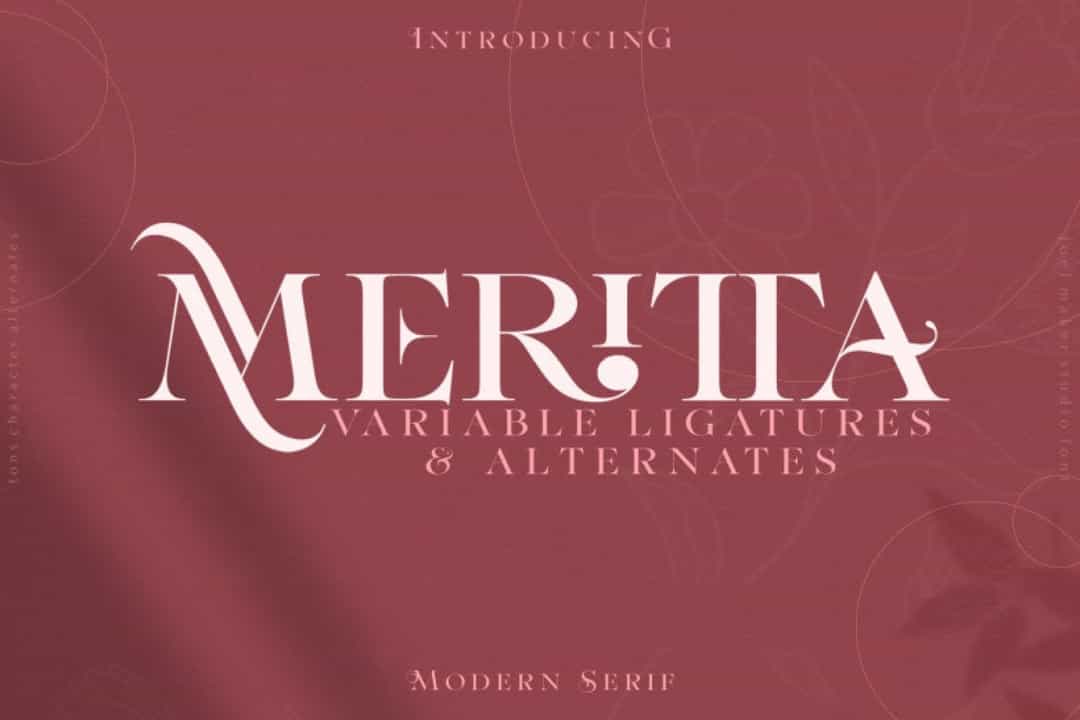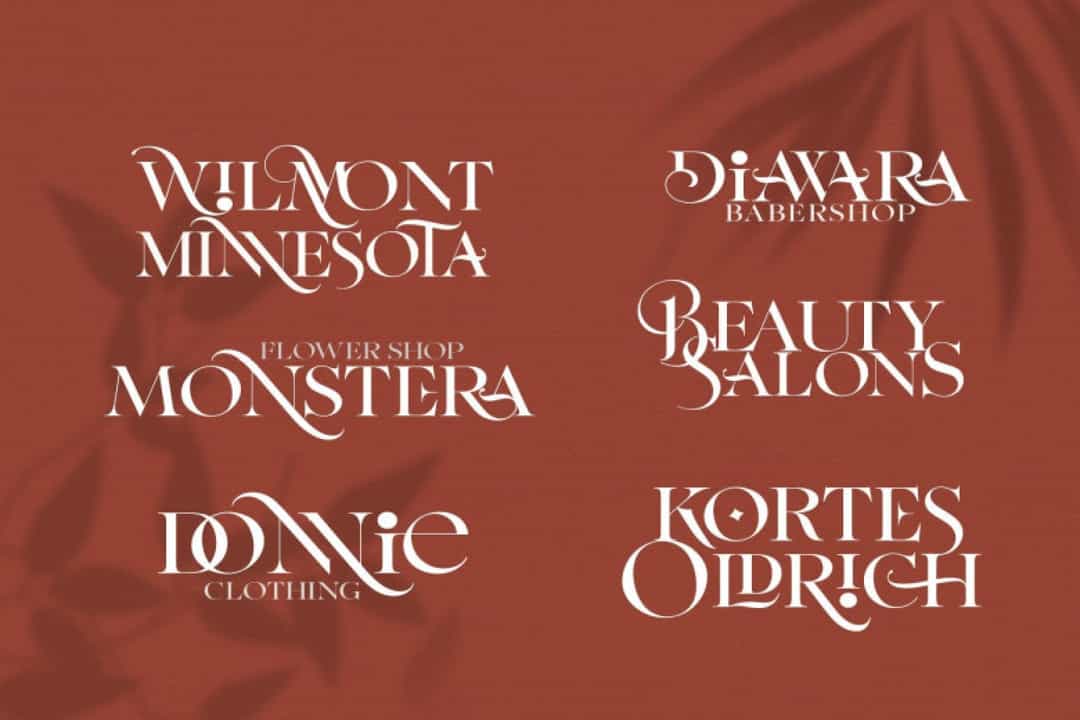
Meritta is a multi-purpose serif font created to meet multiple purposes. Based on letters’ tradition, it was developed through the use of ligaments as well as swirly embedding. Current fonts such as Meritta Serif are definite to make a powerful statement about you or your organization when used for the right application.